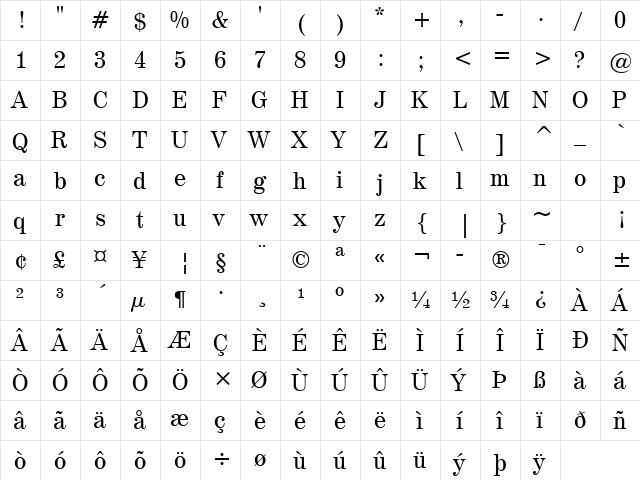
Century725 BT Roman
Design Context for Century725 BT Typeface
Century725 BT offers clean, dependable letterforms without strong stylistic allegiance, making it a practical choice for designers who need flexibility.